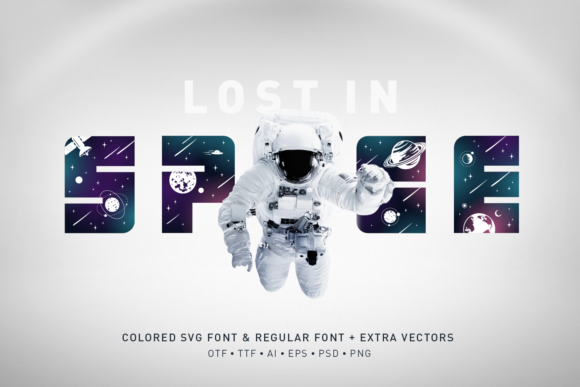
Introducing Lost in Space Font, the captivating and colorful font collection created by Cosmic Store. Get ready to embark on a cosmic journey with this modern font that features a trendy double exposure effect. Each letter in this font family is a unique work of art, telling its own captivating cosmic story.
Imagine the letter "A" with a UFO abducting a deer, or the letter "B" representing the birth of a new Universe. And who can forget the letter "H" where a massive asteroid is hurtling towards Earth, prompting a call for our very own Bruce Willis? Every detail of Lost in Space Font has been meticulously crafted by hand, ensuring a one-of-a-kind experience that will leave a lasting impact.
But that's not all! Lost in Space Font is not your ordinary font. It is a color font (Opentype-SVG) that brings vibrant and eye-catching elements to your designs. Compatible with popular design software such as Photoshop, Illustrator, Silhouette, and Inkscape, this font allows you to unleash your creativity and create stunning visuals that truly stand out.
Whether you're a graphic designer, a digital artist, or someone looking to add a touch of cosmic magic to your projects, Lost in Space Font is a must-have. Its captivating and unique design will elevate your creations and make them truly unforgettable. So why wait? Join the cosmic journey and download Lost in Space Font today.